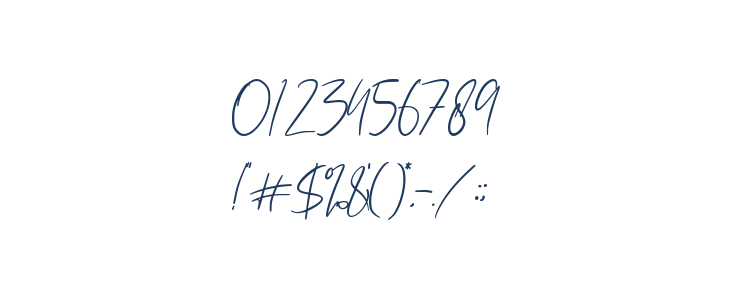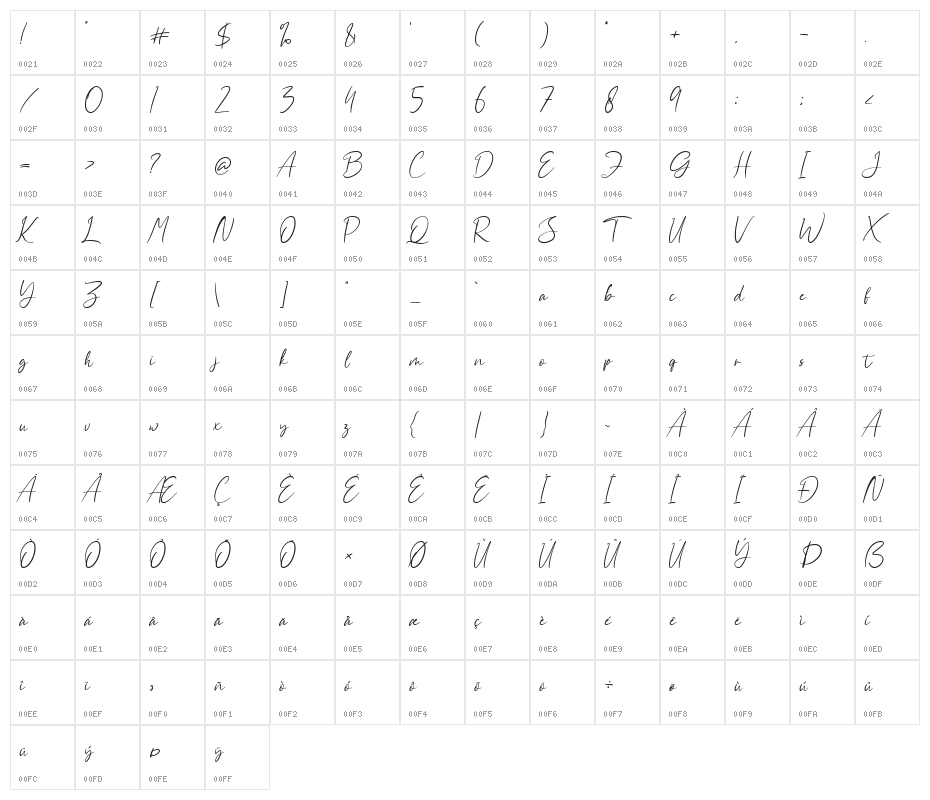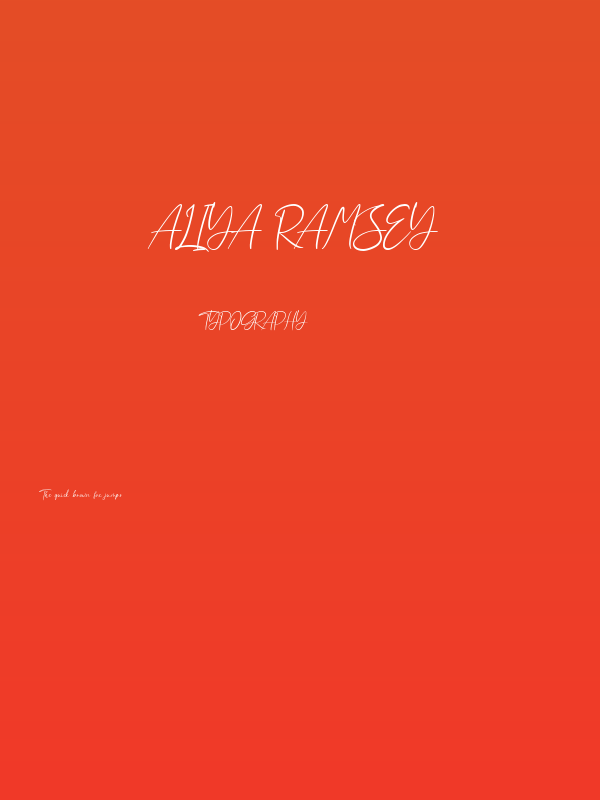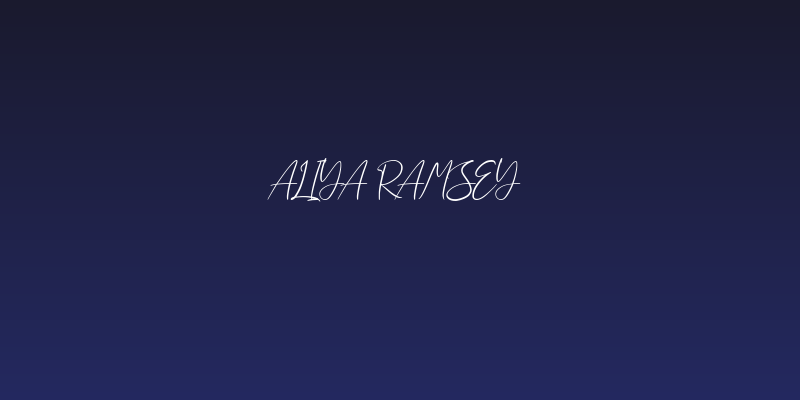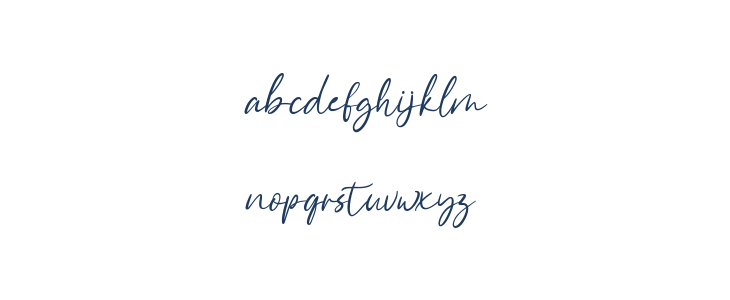
Aliya Ramsey Font
Aliya Ramsey Description
This font exudes elegance and sophistication with its flowing, cursive style. The letters are connected in a fluid manner, reminiscent of traditional calligraphy, yet with a modern twist. The uppercase letters are tall and graceful, while the lowercase letters maintain a consistent flow, enhancing readability. The numerals and special characters are designed to complement the overall aesthetic, maintaining the same fluidity and elegance. This font is perfect for projects that require a touch of class and refinement, such as wedding invitations, branding, and high-end product packaging.
| Overall Style | Modern, Elegant |
| Proposed Projects | Ideal for wedding invitations, luxury branding, and elegant product packaging. |